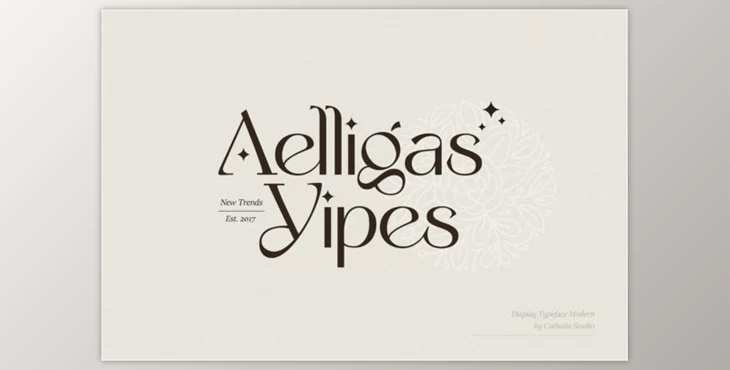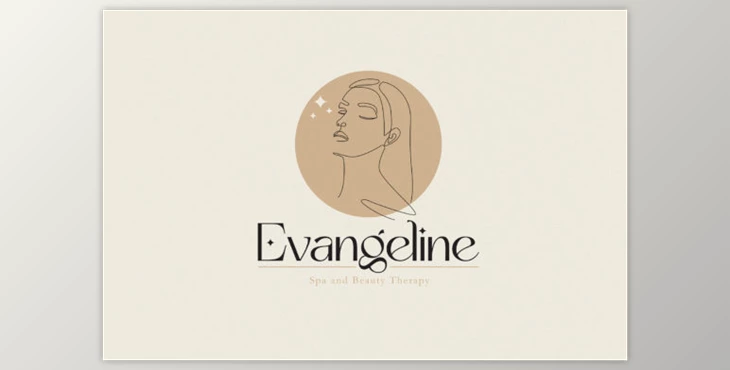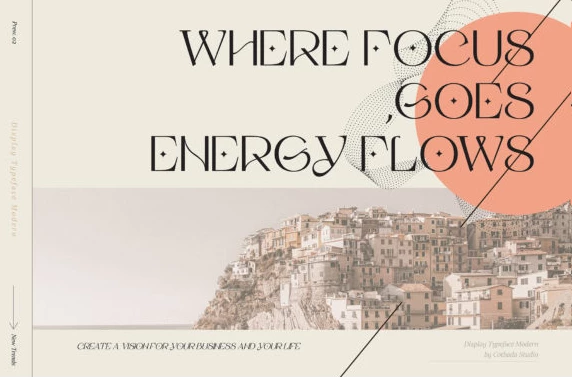
Aelligas Yipes Typeface: Aelligas Yipes is a beautiful and elegant display font. It has been designed with care to be a beloved font; this one can take all your creativity to the next level!
What is Aelligas Yipes Typeface?
Introducing the exquisite Aelligas Yipes Typeface – a stunning display font that exudes beauty and elegance in every curve and contour. Crafted with meticulous attention to detail, this font is poised to become your go-to choice for elevating your creative projects to new heights. Designed to capture hearts, Aelligas Yipes Typeface is a font that encapsulates a realm of possibilities.